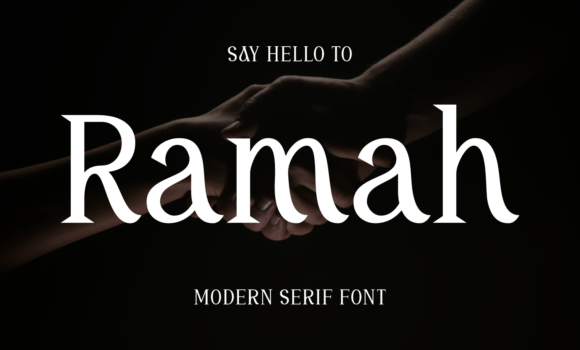
ramah
Ramah Font - Featured Image
Ramah Font – Free Download Introduction to Ramah Font Ramah is a sophisticated and highly elegant modern serif font that combines the timeless appeal of classic typography with crisp, contemporary verticality and strong contrast. 📸 Preview Gallery 3 images 📌